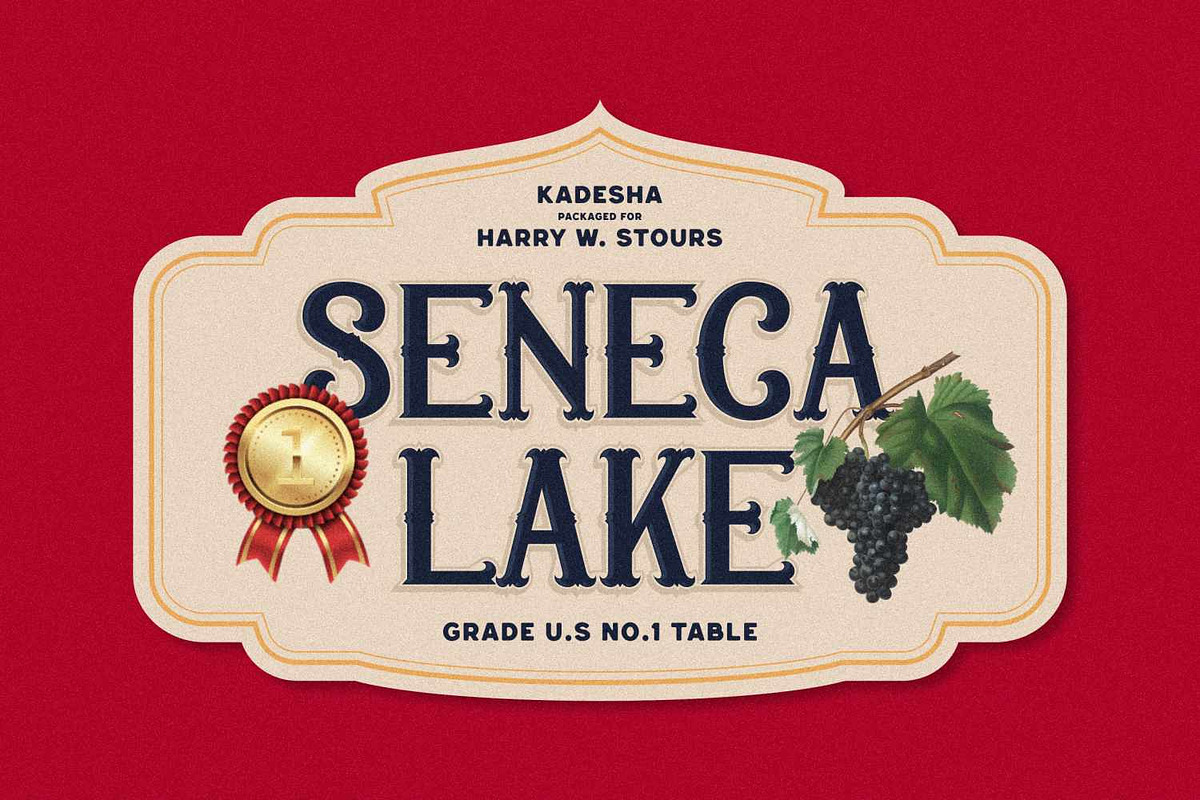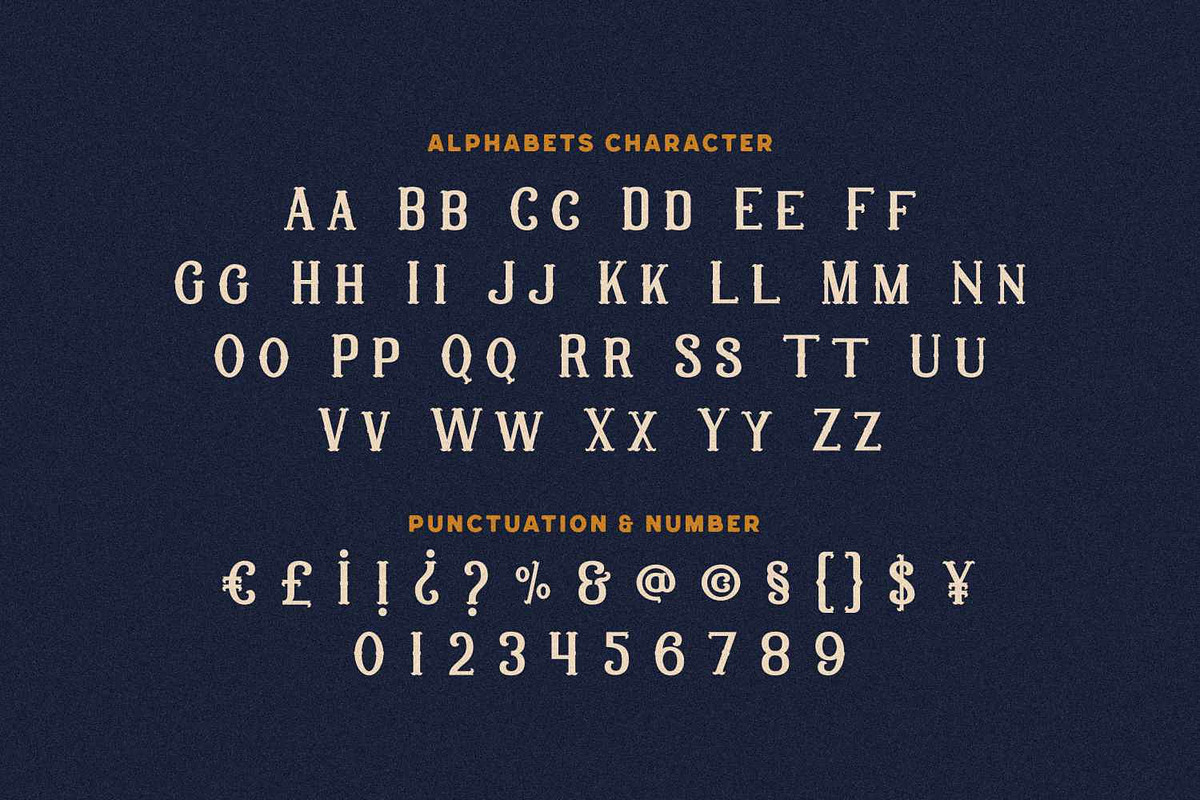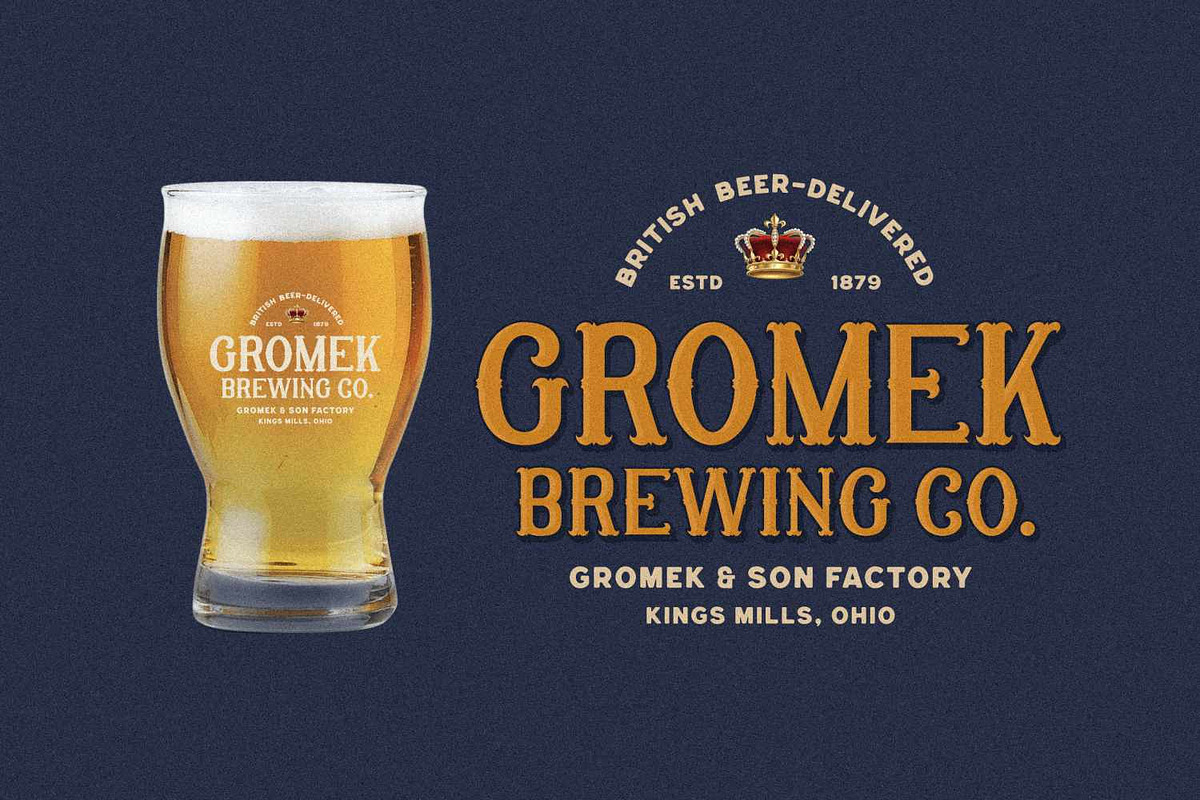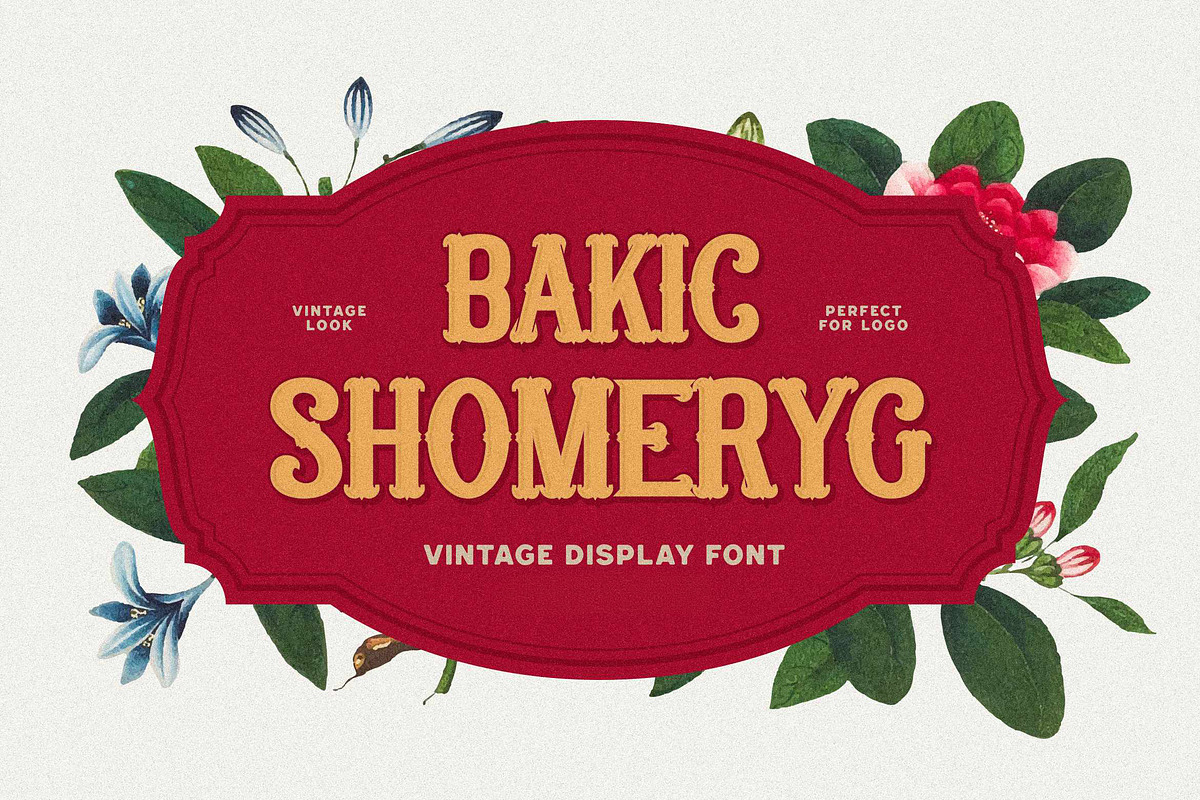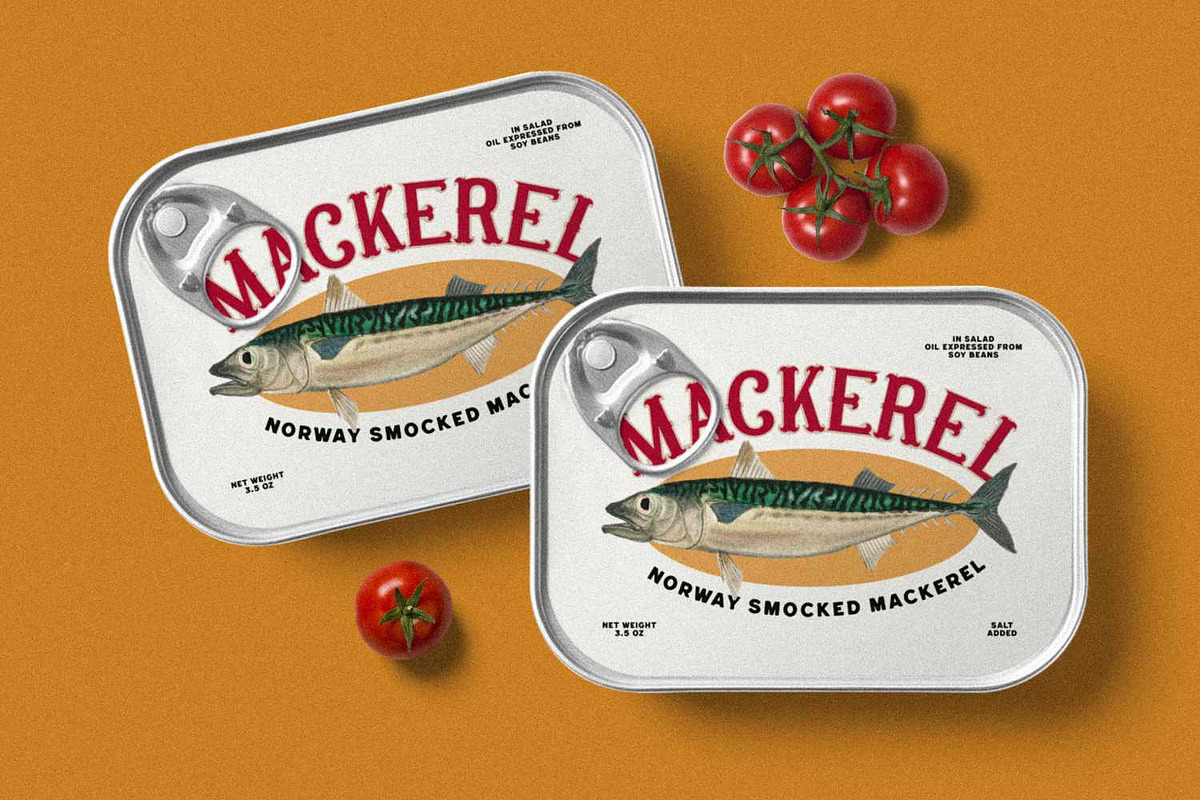
Bakic Shomeryg - Victorian Serif
Bakic Shomeryg is a masterclass in vintage aesthetics, blending the rugged charm of 19th-century letterpress with a refined, modern versatility. It's a decorative display serif characterized by its unique "spur" details and ornate, bracketed serifs that give every character a hand carved, artisanal feel.
Whether you are designing a craft label, apothecary brand, or vintage inspired food packaging, Bakic Shomeryg brings an instant sense of heritage and "old world" prestige to your project.
Features this font classic spur serif aesthetics that capture the essence of Victorian era signage and western typography.
Perfect for logos, labels, headlines, and any design that requires a strong, authoritative, yet elegant presence.